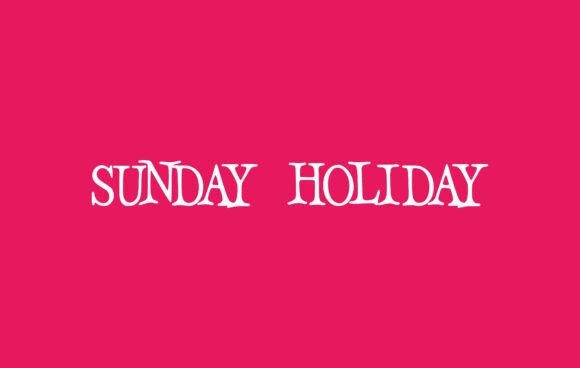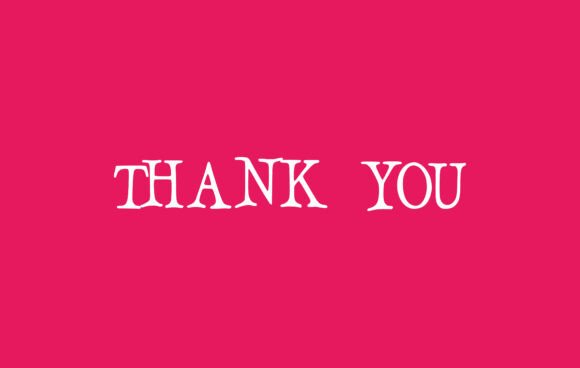
Introduction to Jesus Font
Have you ever been working on a creative project and suddenly, the perfect font pops into your mind, elevating your entire design? For designers, finding that perfect font can make all the difference. It’s the moment when the puzzle pieces fall into place, and the design begins to shine. This is exactly what the Jesus Font can do for you.
As a high-quality design resource, the Jesus Font is an authentic handwritten font with a romantic touch that will add a personal and intimate feel to your designs. With its legible and elegant style, it’s perfect for magazine headlines, social media, branding, wedding invitations, and more. Whether you’re working on a free download or a paid project, this font is sure to make your designs stand out.
Key Features of Jesus Font
- Comes with a transparent background for versatile usage
- Supports various languages and character sets for global use
- Features a unique, modern design with elegant lines and curves
- Includes a comprehensive character set with over 1000 glyphs
- Designed with high-resolution support (up to 1024×1024 pixels)
Honest Review: Jesus Font
Here are some of the key features that I liked:
- Perfect for personal and professional use
However, I did encounter some limitations. The font may not be suitable for all types of projects, as it has a quite distinctive style. Also, the font family is not very extensive, so you may not find a lot of variations to choose from.
Overall, I’m impressed with the Jesus Font. It’s a great design resource that’s perfect for creative projects where you want to add a touch of elegance and sophistication. With its high-quality design and transparent background, it’s definitely worth checking out.
Jesus Font
The Jesus Font is a high-quality design resource ideal for creative projects. With a transparent background, this font is perfect for adding a touch of elegance to your designs.
Tips for Getting the Most Out of the Jesus Font
To get the most out of the Jesus Font, use it in combination with other design elements, experiment with different font sizes and styles, and customize the font to fit your project’s unique needs.
The Jesus Font is ideal for a variety of creative projects, including: wedding invitations, business cards, brochures, and social media graphics. With its high-quality design and transparent background, this font is perfect for adding a touch of sophistication to your designs.
Alternatives to Jesus Font
Alex Brush Font is a beautiful, high-quality script font that is perfect for creative projects requiring a touch of elegance. It features a transparent background and can be used for headings, titles, and other design elements. When to use: wedding invitations, luxury branding, and high-end design projects.
Comparison to Jesus Font: Alex Brush Font has a more refined and sophisticated look compared to Jesus Font, making it ideal for high-end design projects.
Great Vibes Font is a modern, high-quality font that is perfect for creative projects requiring a unique and stylish look. It features a transparent background and can be used for headings, titles, and other design elements. When to use: fashion branding, luxury packaging, and high-end design projects.
Comparison to Jesus Font: Great Vibes Font has a more modern and edgy look compared to Jesus Font, making it ideal for fashion and luxury branding projects.